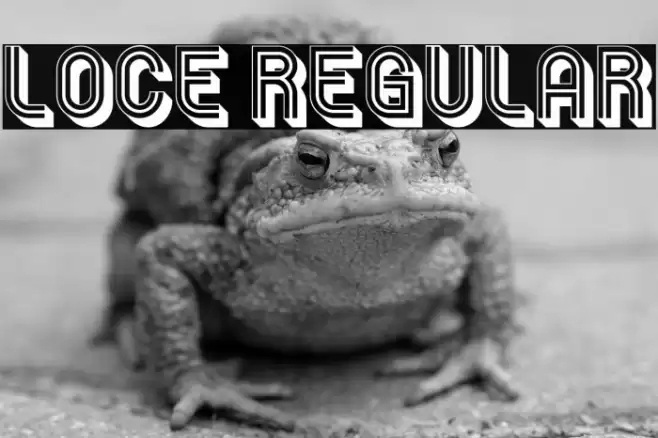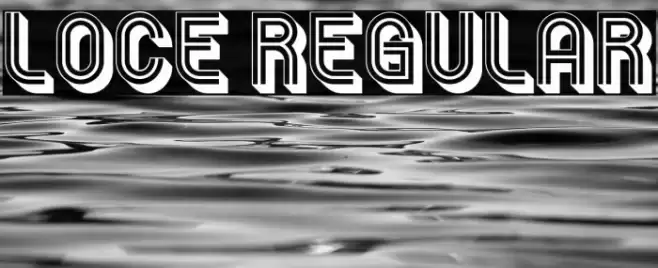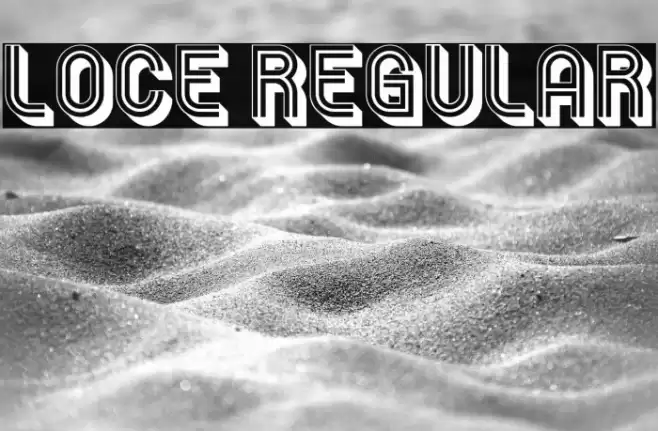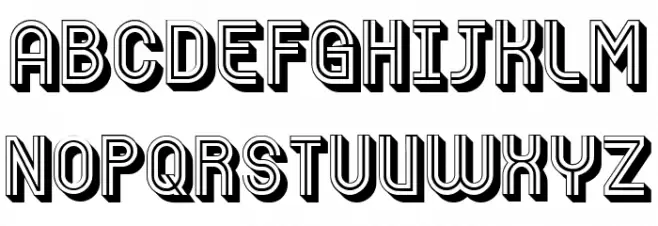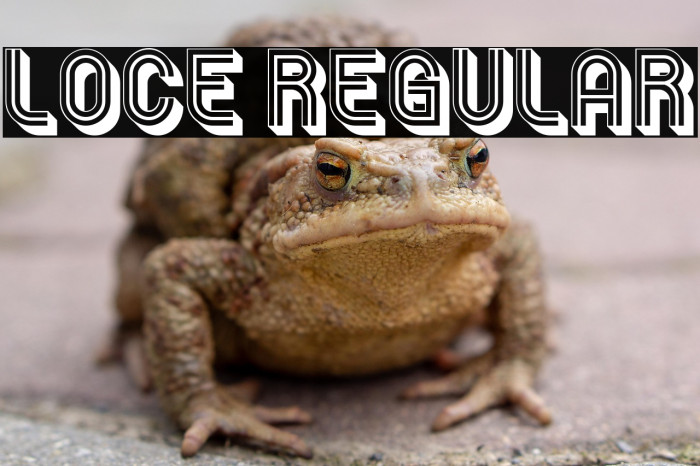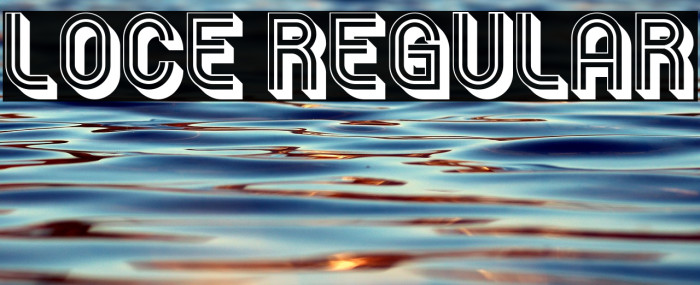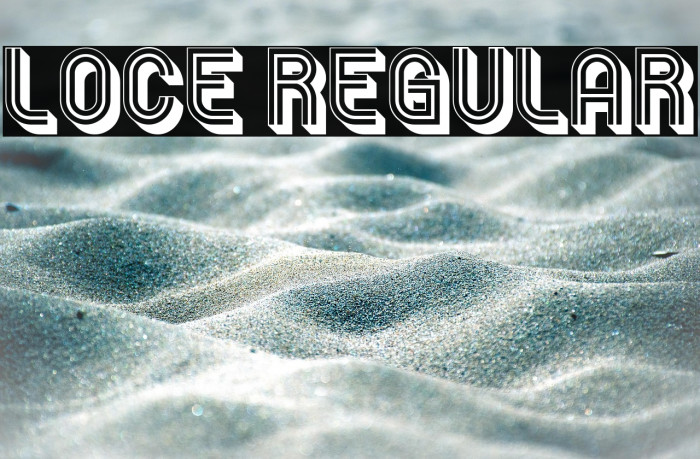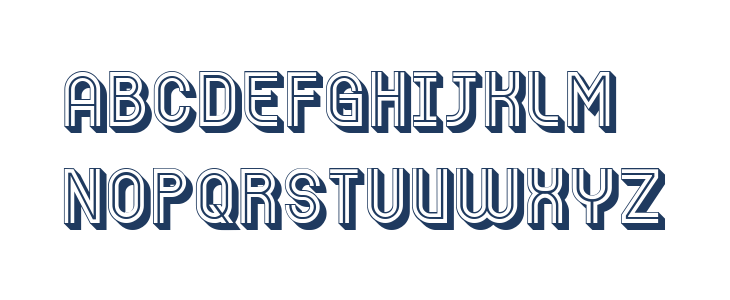
Loce Regular Font
Loce Regular Description
This font features a bold and striking 3D effect, with each letter having a shadow that gives it depth and dimension. The uppercase letters are designed with clean, geometric lines, creating a modern and dynamic appearance. The font's style is reminiscent of retro signage, making it ideal for projects that require a vintage yet contemporary look. The characters are evenly spaced, ensuring readability while maintaining a visually appealing structure. Its unique design makes it suitable for eye-catching headlines and logos.
A bold, 3D-effect font with geometric lines and a retro-modern style from Uncategorized fonts.
- Proposed Projects: Ideal for branding, poster design, signage, and any project needing a standout, retro-modern aesthetic.
- Overall Style: Retro, Modern